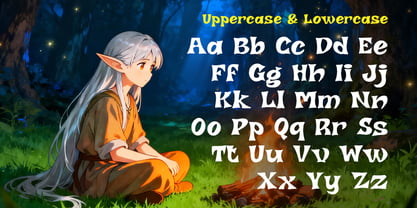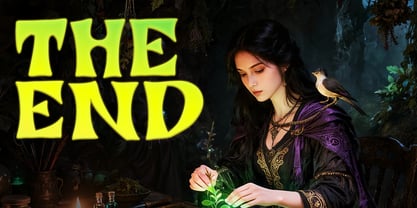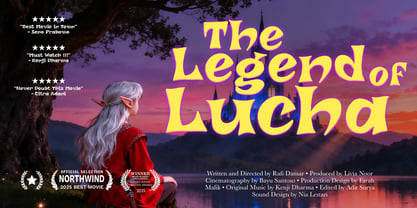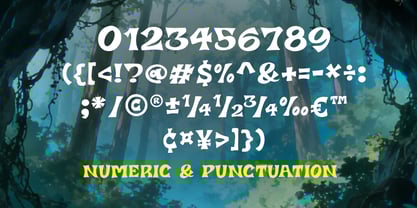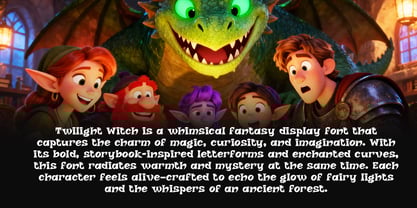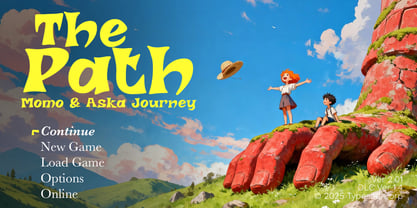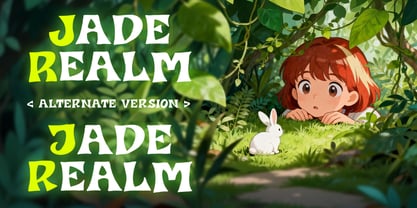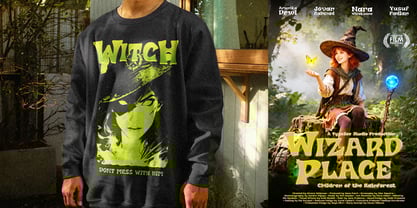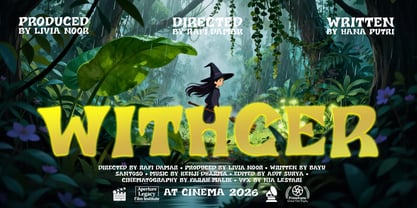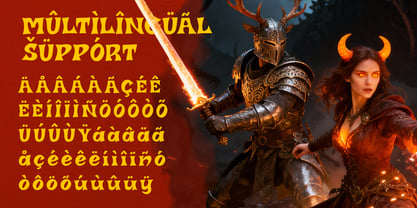
Twilight Witch
Die Schriftfamilie Twilight Witch wurde von Rizka Prayuda, Muhammad Mirza Azhmi entworfen und von Typesee veröffentlicht. Twilight Witch enthält 1 Stile. Mehr über diese Familie
Twilight Witch is a fantasy display typeface designed with organic, hand-drawn contours that evoke the charm of classic storybook lettering. Its bold weight and slightly irregular shapes create a lively rhythm, adding depth and personality to titles, headers, posters, children’s books, game interfaces, and cinematic branding. The font blends playful curves with an enchanted visual tone, making it ideal for projects that aim to capture a sense of magic, adventure, and mystical atmosphere. Uppercase and lowercase sets are crafted for consistency while maintaining the whimsical character that defines the font’s identity.
Designer: Rizka Prayuda, Muhammad Mirza Azhmi